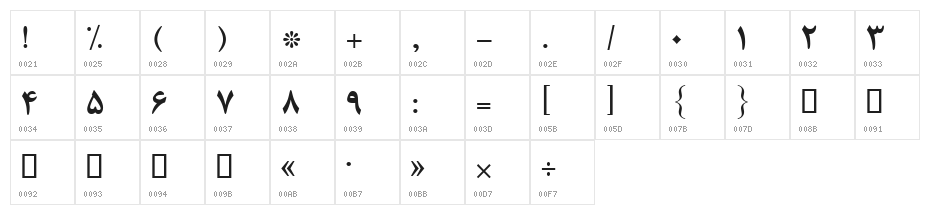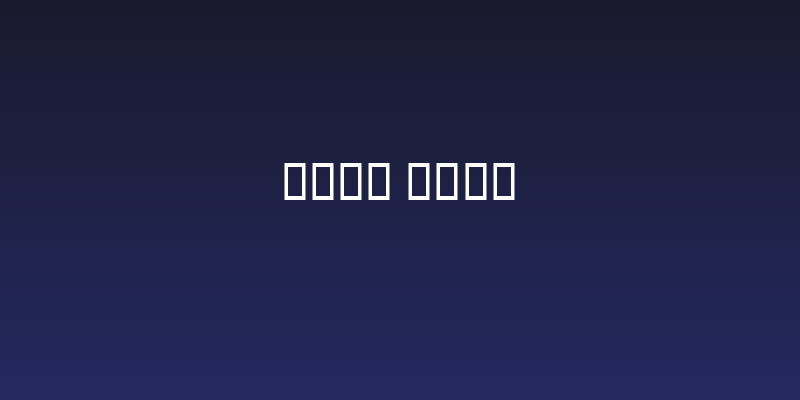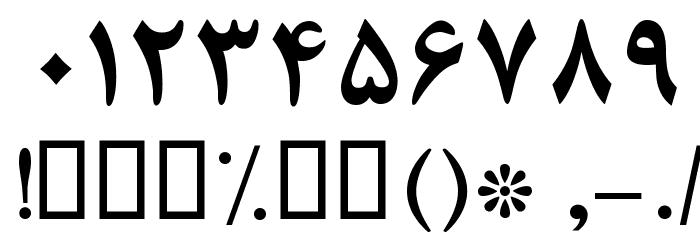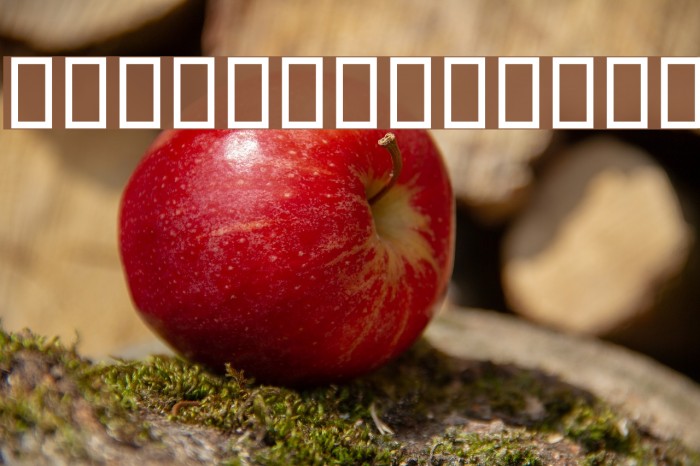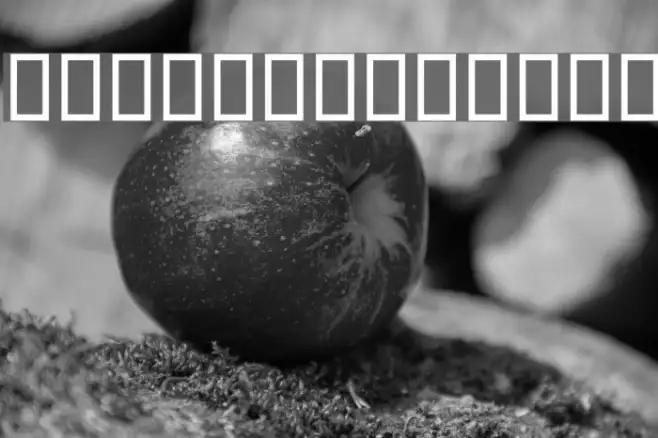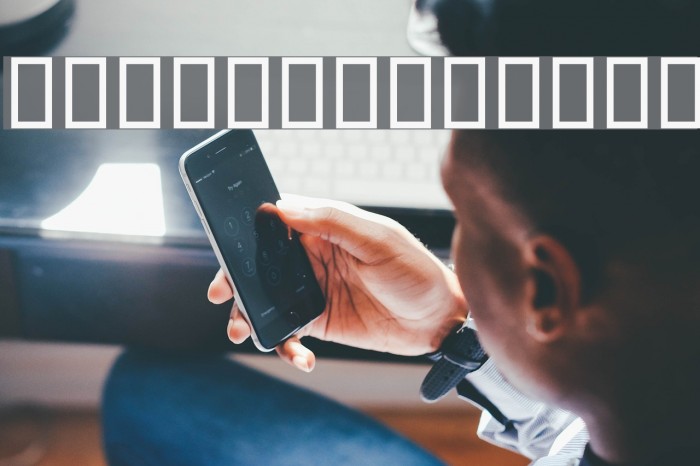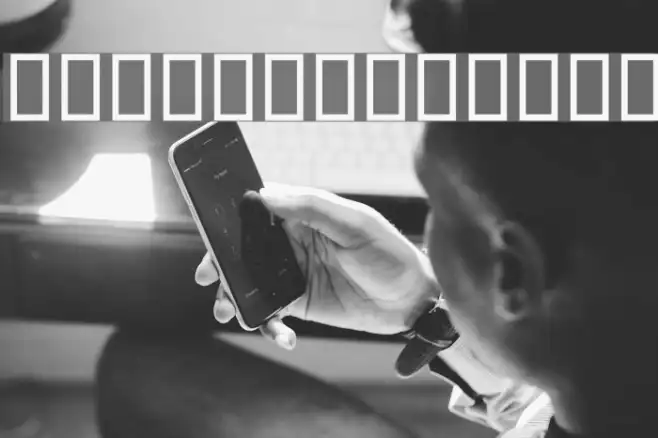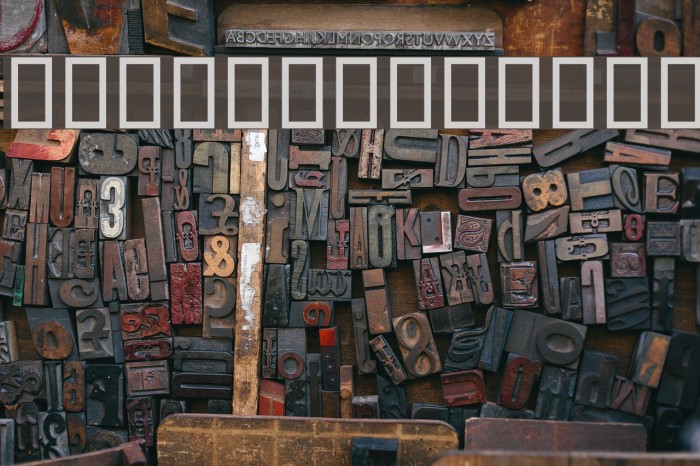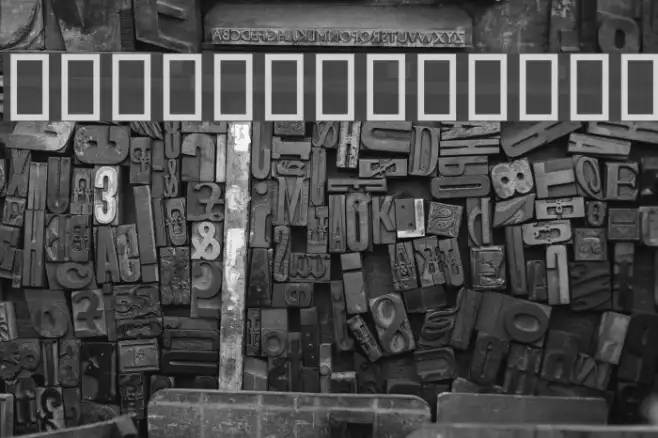
Naaz Bold Font
Naaz Bold Description
This font features a bold and striking design with a strong presence. The characters are crafted with a thick, uniform stroke that gives them a robust and confident appearance. The numerals and special characters maintain the same boldness, ensuring consistency across all elements. The font's style is modern and impactful, making it suitable for attention-grabbing headlines and displays. Its bold nature suggests a sense of authority and strength, making it ideal for projects that require a commanding visual presence.
| Proposed Projects | Ideal for headlines, posters, branding materials, and any project requiring a bold statement. |